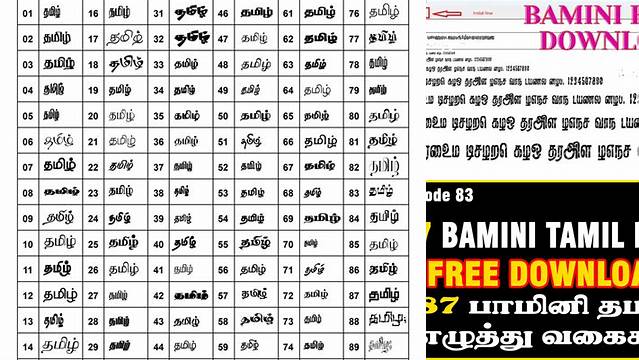
1. What is Bamini Font?
Bamini font free download has become a popular search term, and for good reason! Bamini is a widely-used Tamil font known for its clear, legible, and elegant design. It's a staple in Tamil typography, often used in print media, digital documents, and websites. Its clean lines and balanced letterforms make it easy to read, even at small sizes, which is why it's so beloved by designers and readers alike. Understanding the history and characteristics of Bamini font will help you appreciate its value and use it effectively in your projects. The popularity of Bamini stems from its versatility and widespread adoption in the Tamil-speaking community. Whether you're creating a poster, writing a document, or designing a website, Bamini font provides a reliable and visually appealing option. So, if you're on the hunt for a reliable and beautiful Tamil font, Bamini is definitely worth considering.
2. History of Bamini Font
When you're looking for a Bamini font free download, it's interesting to know where it came from! The Bamini font has a rich history rooted in the evolution of Tamil typography. It was created to address the specific needs of writing and printing in the Tamil language. Over the years, it has become a standard font in many Tamil-speaking regions. Understanding the origins of Bamini can give you a deeper appreciation for its design and usage. The font's development was a response to the growing demand for a clear and readable typeface that could be easily used in both print and digital media. Early versions of the font were often used in newspapers and books, helping to standardize the appearance of Tamil text. The evolution of Bamini font also reflects broader changes in technology and design. As computers and digital publishing tools became more common, Bamini was adapted and refined for use in these new contexts. Today, it remains a vital part of the Tamil typographic landscape, used in everything from official documents to creative design projects.
3. Key Characteristics of Bamini Font
When you're deciding if a Bamini font free download is right for you, consider its key characteristics! Bamini font is known for its distinctive features, including its clear letterforms, balanced proportions, and overall readability. These characteristics make it an excellent choice for various applications, from body text to headlines. Knowing what sets Bamini apart can help you make informed decisions about using it in your projects. One of the most notable features of Bamini is its consistent stroke weight, which ensures that each letter is clear and distinct. This is particularly important for Tamil script, which can be complex and intricate. The balanced proportions of the font also contribute to its visual appeal, making it easy on the eyes and comfortable to read. In addition to its technical qualities, Bamini also has a certain aesthetic charm. Its elegant design and classic feel make it a versatile choice for a wide range of projects, from formal documents to creative designs. So, if you're looking for a font that combines functionality with visual appeal, Bamini is an excellent option.
9. Alternatives to Bamini Font
If you're looking for something a little different than your Bamini font free download, there are plenty of alternatives! While Bamini is a popular choice for Tamil typography, there are many other fonts that offer unique styles and features. Some popular alternatives include Latha, Vijaya, and Tab. These fonts have their own distinct characteristics and can be used to create different visual effects. Latha is known for its clean and modern design, while Vijaya has a more traditional and elegant feel. Tab is a versatile font that works well in both print and digital media. When choosing an alternative to Bamini, consider the specific needs of your project and the overall aesthetic you're trying to achieve. You can also experiment with different font pairings to create a unique and visually appealing look. Don't be afraid to try out different options and see what works best for you. Ultimately, the best font is the one that best suits your project and helps you communicate your message effectively.